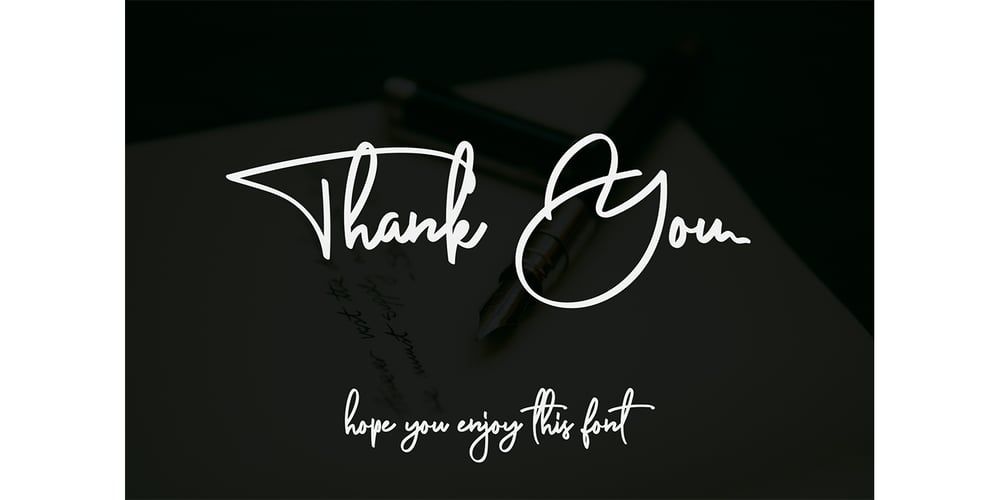
Anderfont Font Family was designed by Agung Rohmat and published by alphArt. Anderfont contains 1 styles and family package options. Anderfont is a Signature Font is a handwritten script font with a simple and classy style. This font is great for your next creative projects such as watermark on photography, signature or signature logo design, quotes, album cover, business card, and many other design project. From business cards to photo watermarks, Anderfont is here to elevate your work to the highest level. Anderfont comes with uppercase letters, lowercase alternative letters, numbers, punctuation, ligature and multi lingual support What’s inclued : – Anderfont.otf Please note : To use alternative end text is just block end letters and select alternative letters on glyphs option. It may be used in almost any program by using your Operating System’s utilities (CharacterMap for Windows and Font Book for Mac.), as well as Illustrator, Photoshop CC 2017 and several other applications.